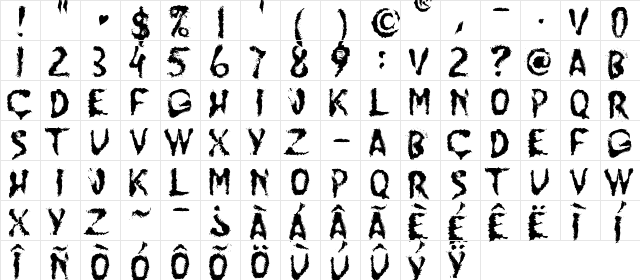
JUMP BURN IP Regular
| Designer | Le Thi Thu Huong (Poemhaiku) |
Design Context for JUMP BURN IP Typeface
JUMP BURN IP is a composed and adaptable typeface that performs quietly and consistently across a wide range of design contexts.